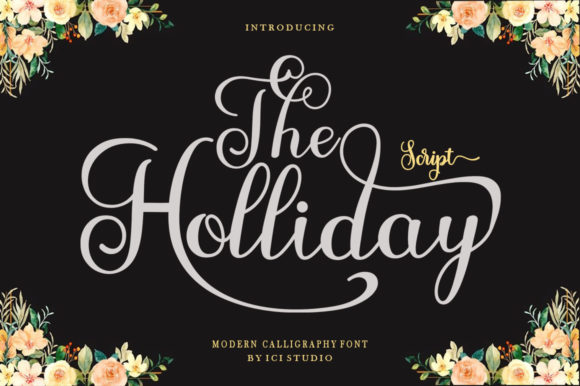
About The Holliday Font
The Holliday is a beautiful and light handwritten font with a unique feel and a stunning impact. It will add a luxury spark to any design project that you wish to create! This font is PUA encoded which means you can access all of the amazing glyphs and ligatures with ease!